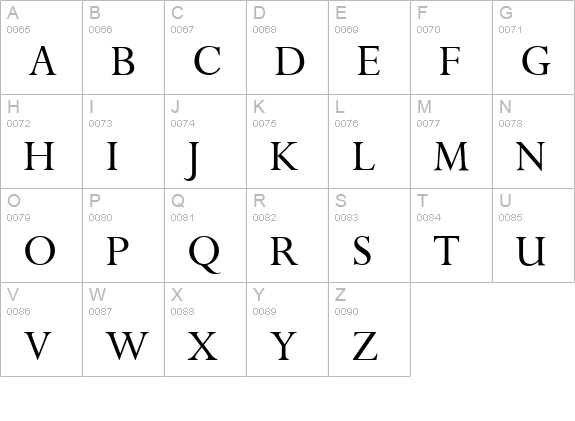
P700-Roman-Regular is the standard, neutral variant in the P700 typeface family \xE2\x80\x94 well suited to general body text, paragraphs, and standard typographic work.
P700-Roman-Regular is a classic and versatile font that exudes elegance and sophistication. Its clean lines and timeless design make it suitable for a wide range of projects, from formal invitations to modern branding. The balanced proportions of the letters ensure readability and clarity, making it a perfect choice for both print and digital applications. What sets P700-Roman-Regular apart is that it is available for free download at FontsMarket.com. This means that you can elevate your designs without breaking the bank, making it an excellent option for designers looking for high-quality fonts at no cost. Whether you're working on a personal project or a commercial endeavor, P700-Roman-Regular is a reliable and stylish font choice that won't disappoint. Download it today and add a touch of sophistication to your creations.